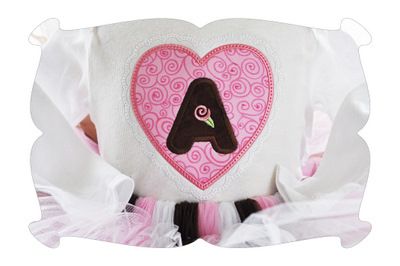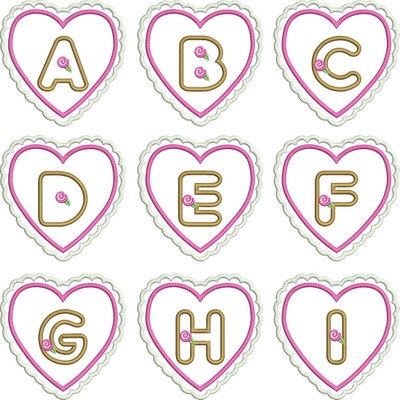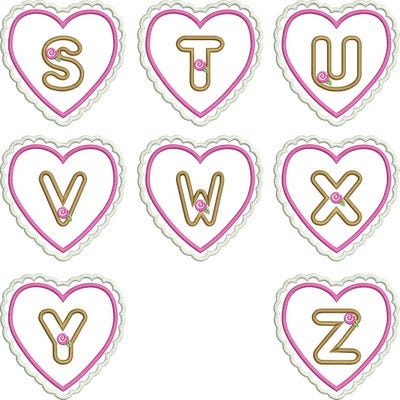
Heart Box Chocolate Satin Stitch Applique Monogram Embroidery Font
Heart Box Chocolate Font
There's nothing sweeter than a heart shaped box full of chocolates!
Our Heart Box Monogram features a lacy scalloped heart and chocolate applique letter, how sweet is that?
Included are capital letters A thru Z, embedded onto the design for you.